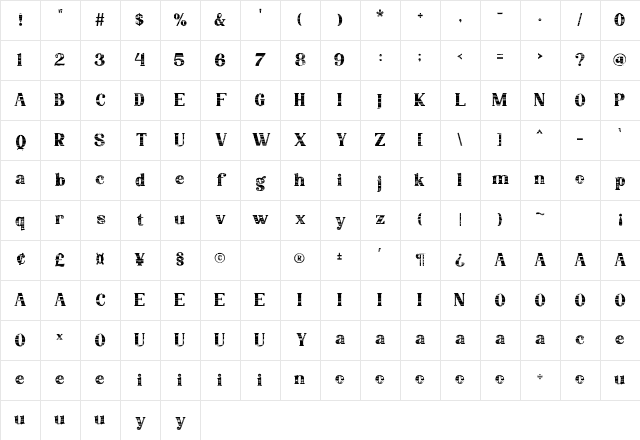
Chalkzone Regular Free Font
Chalkzone Regular
Foundry: Graphix Line Studio
Designer: Aldi Raya Pradipta
Design Context for Chalkzone
Chalkzone is a composed and adaptable typeface that performs quietly and consistently across a wide range of design contexts.